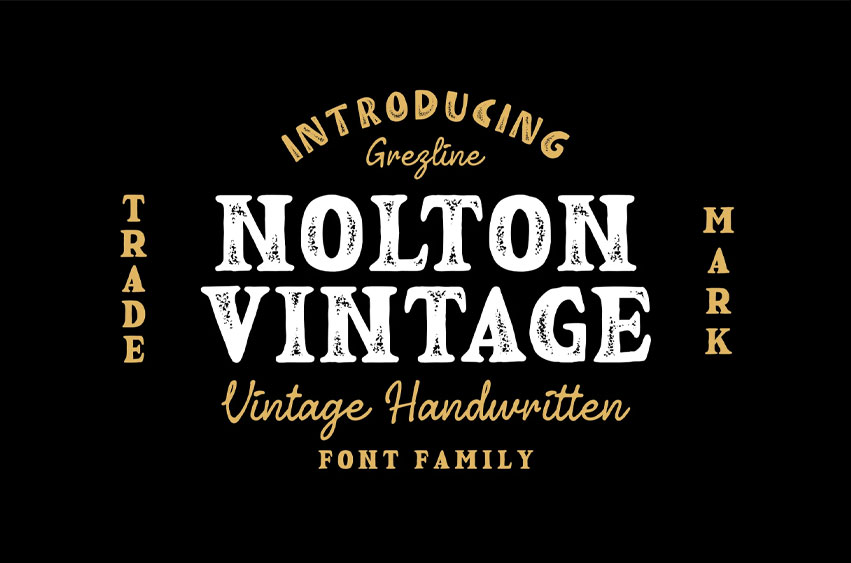
Nolton Vintage Font is inspired by the timeless beauty of vintage lettering. Every word typed with it to feel more expressive, more handcrafted and more memorable.
It’s not just about readability – it’s about creating a mood and giving your design a stronger identity.